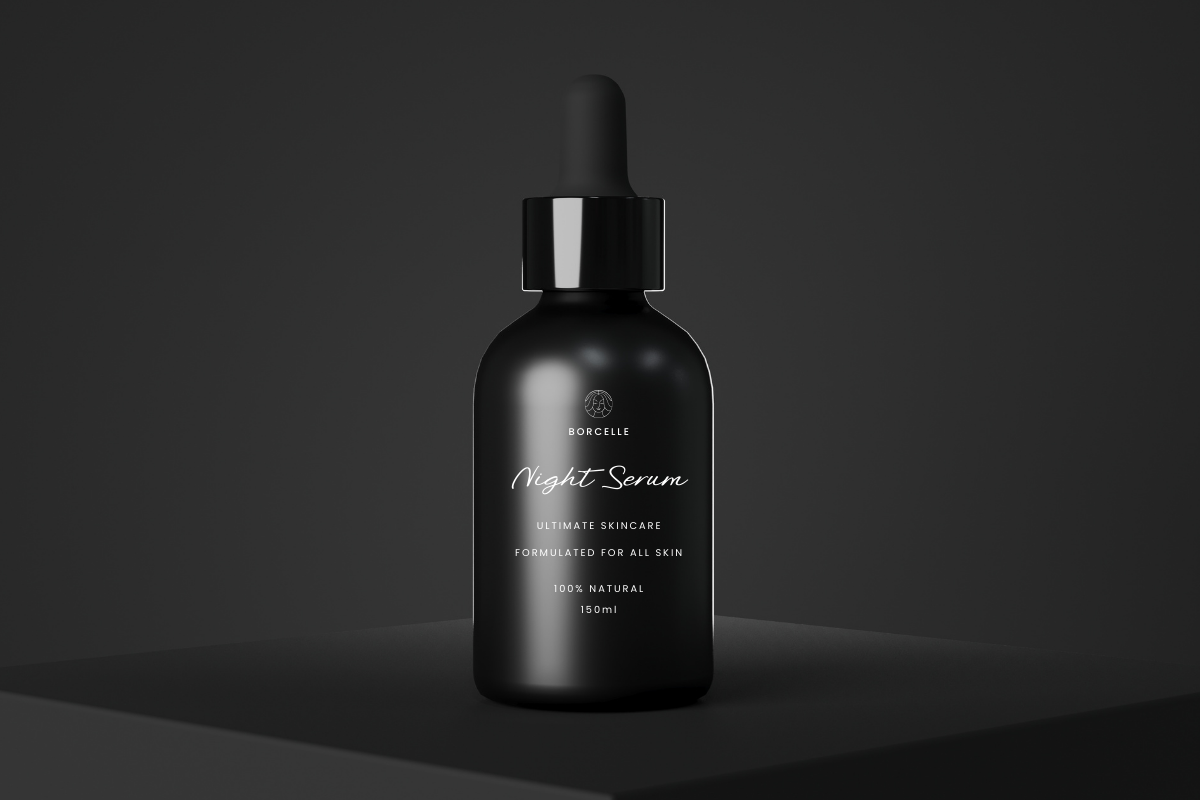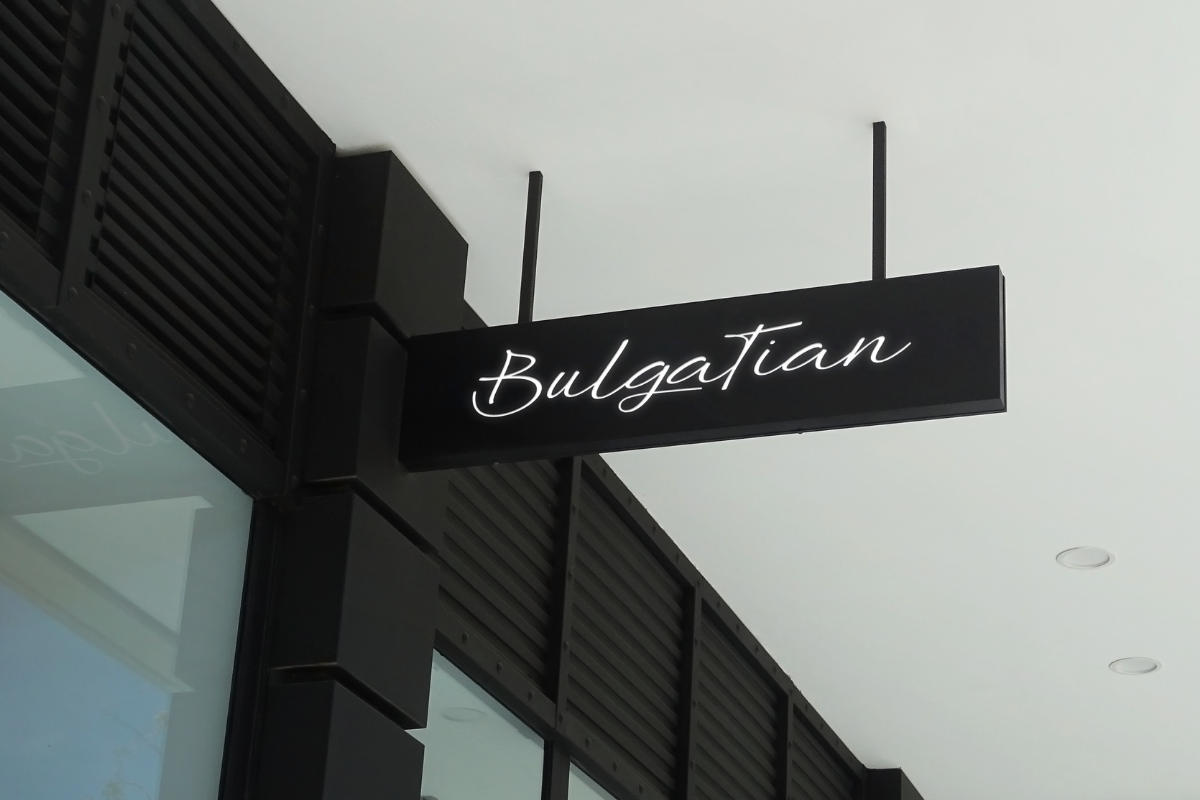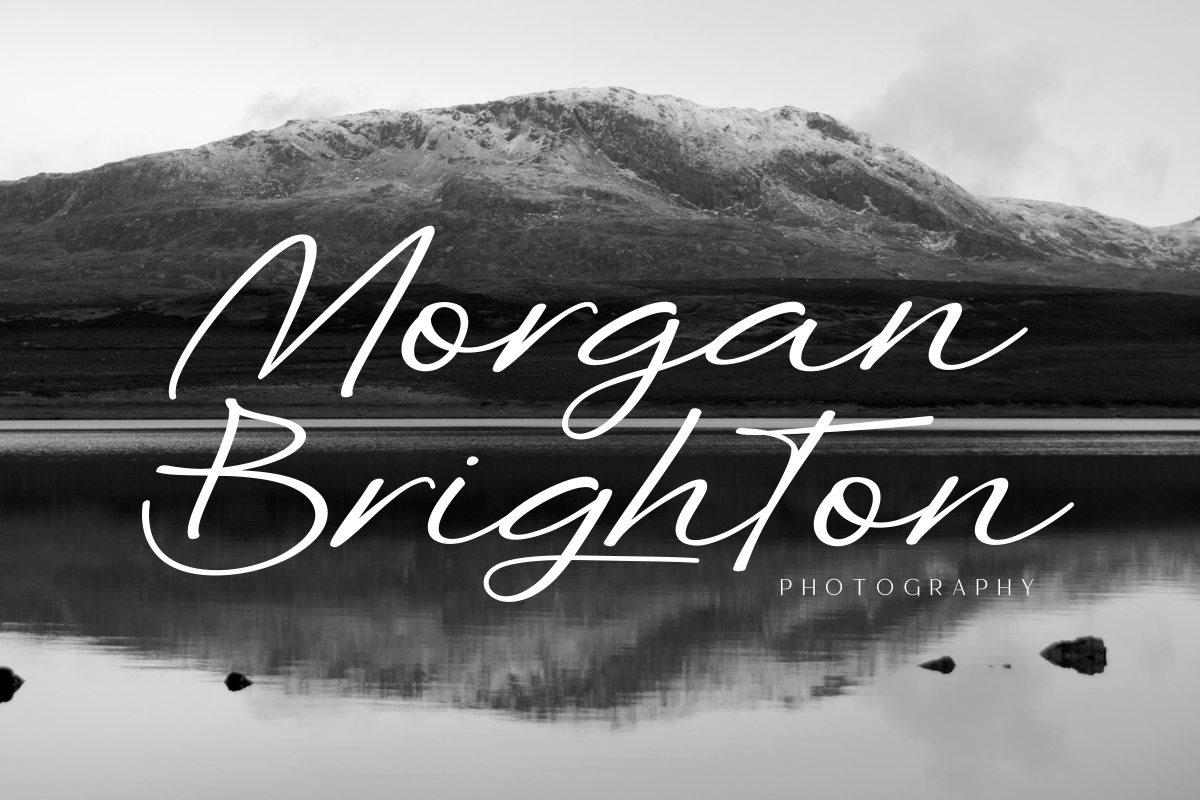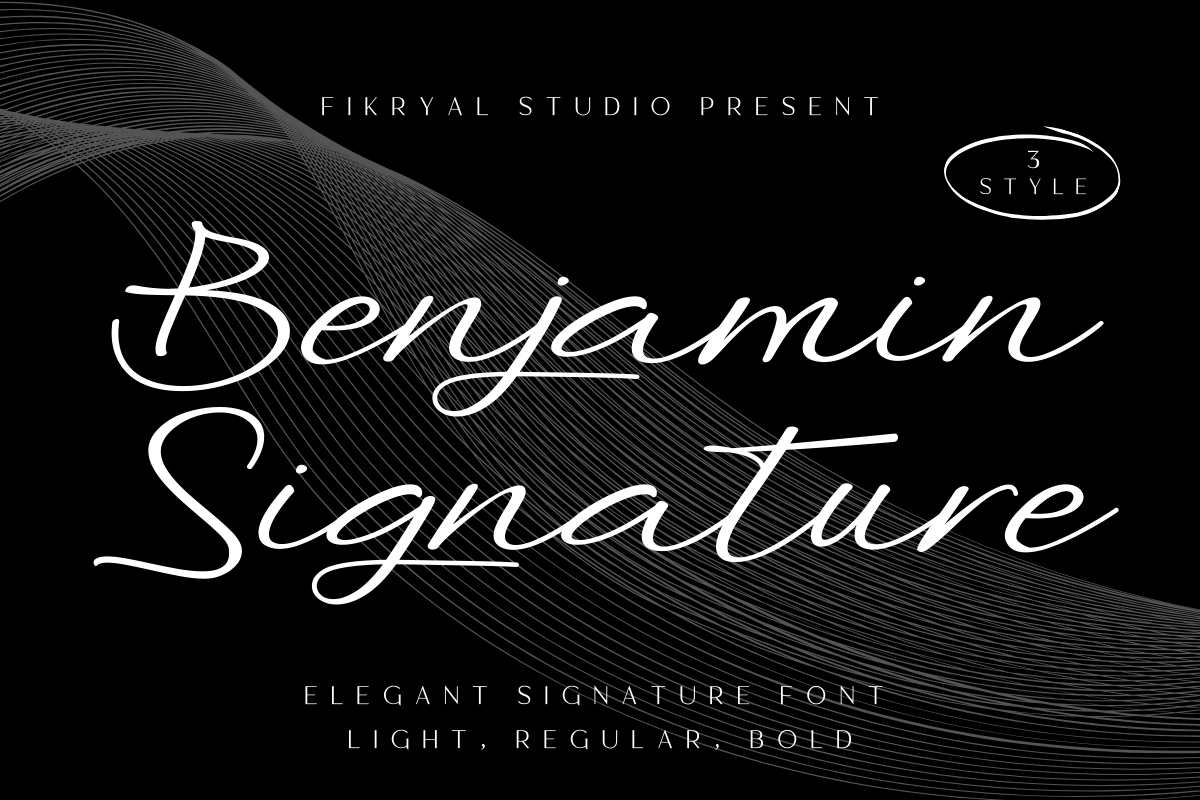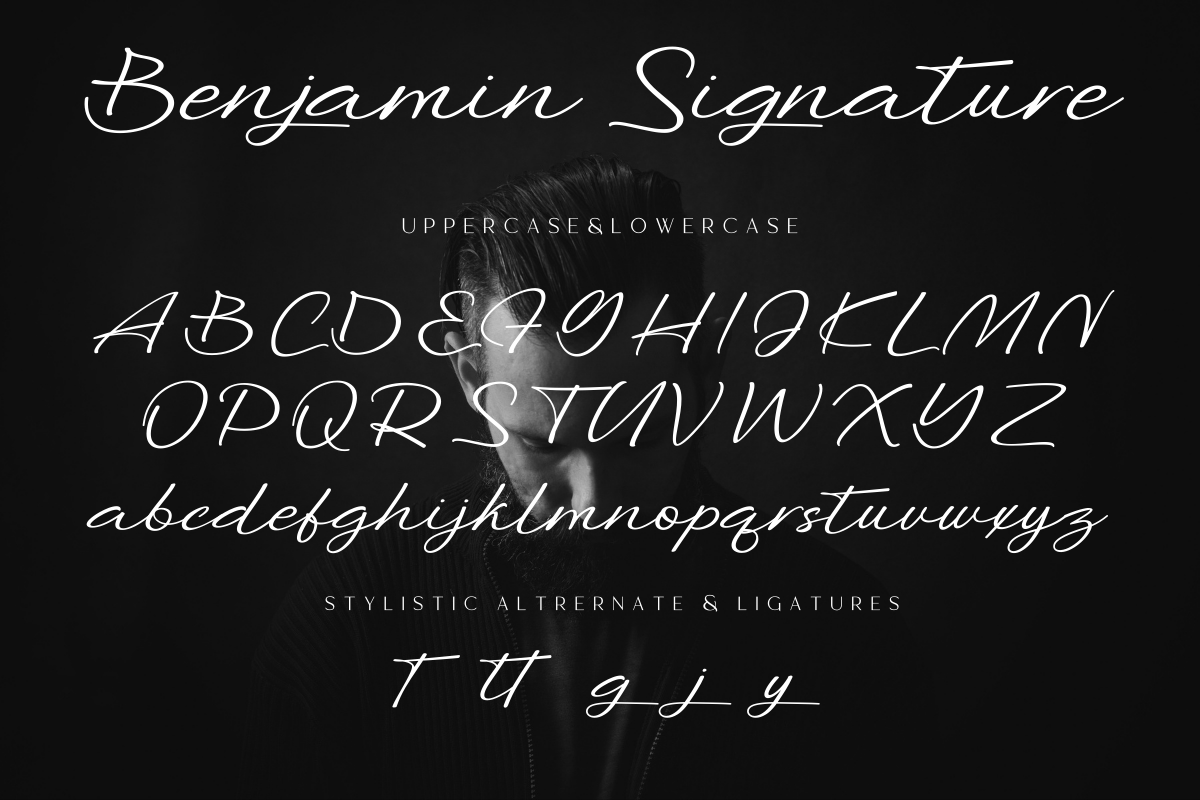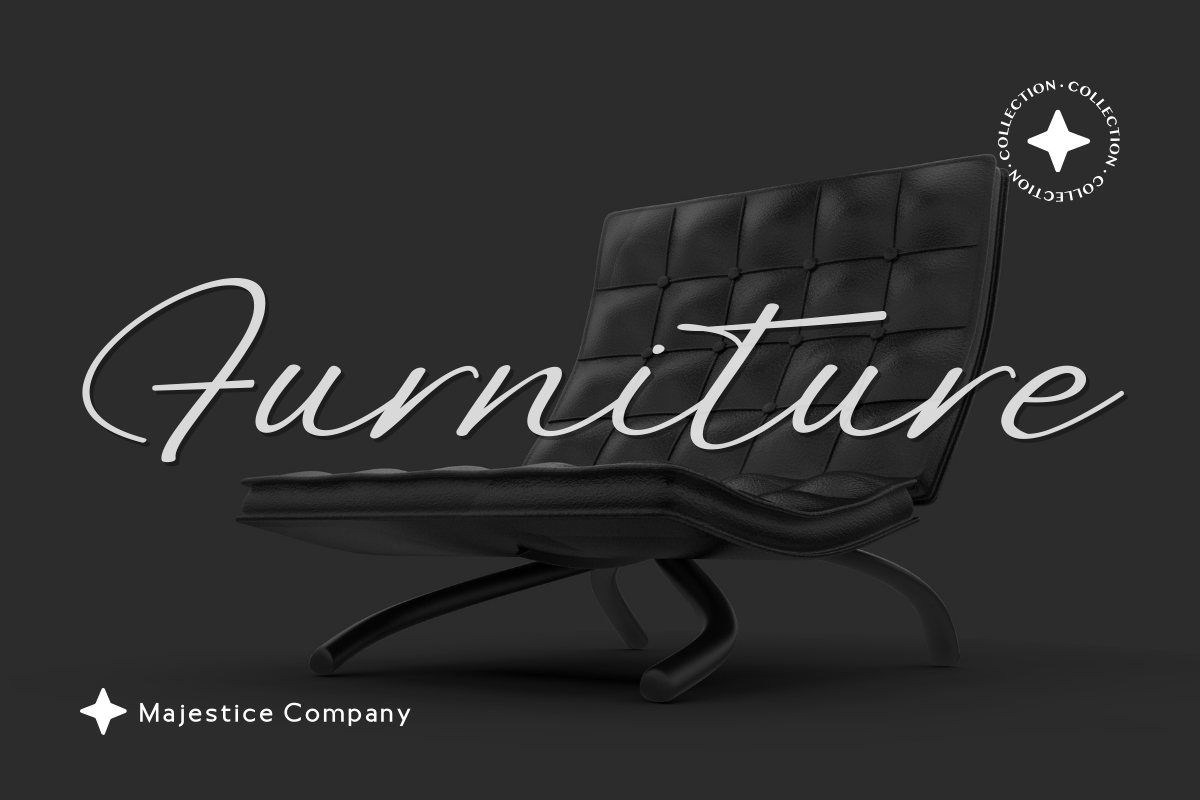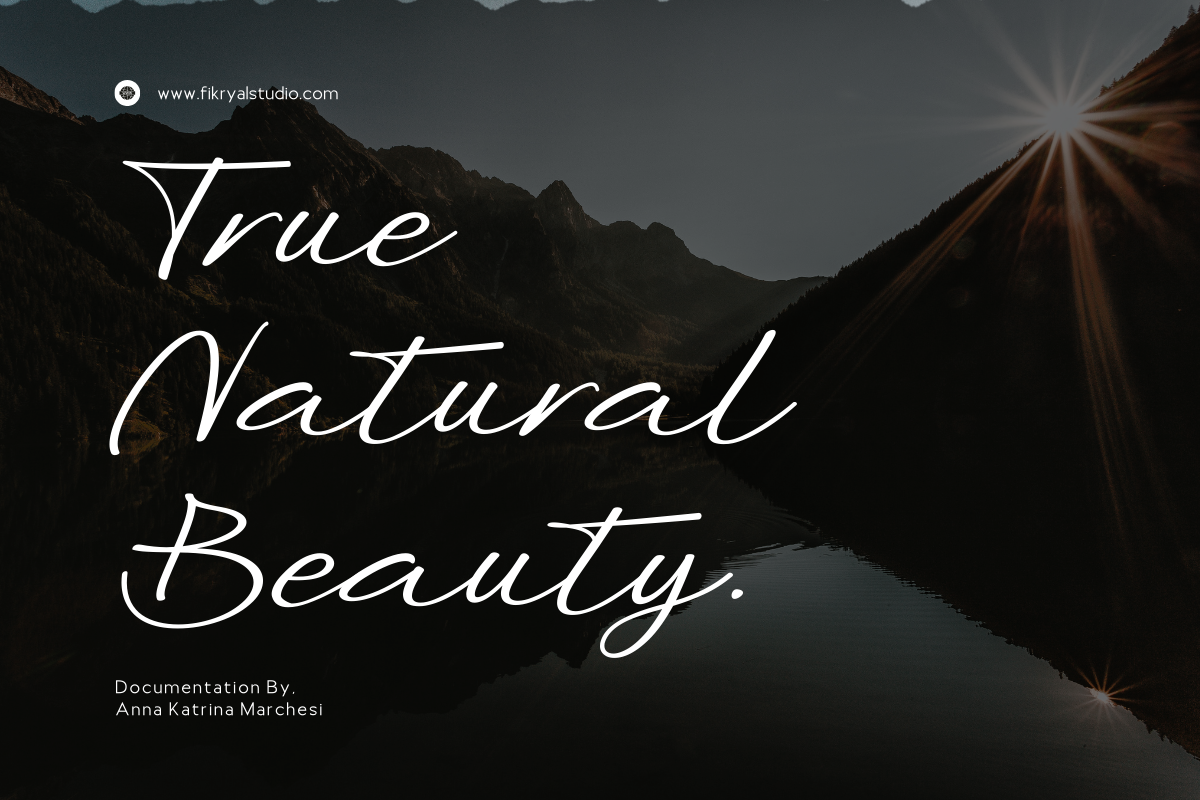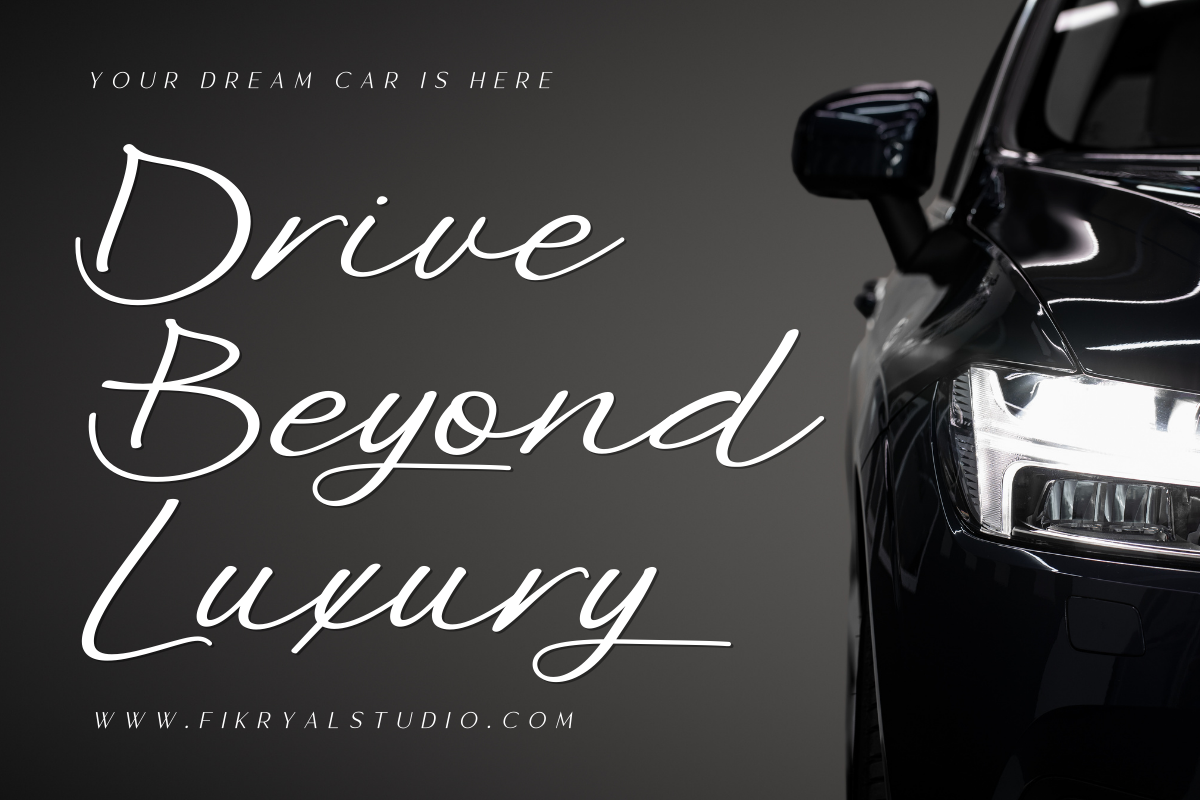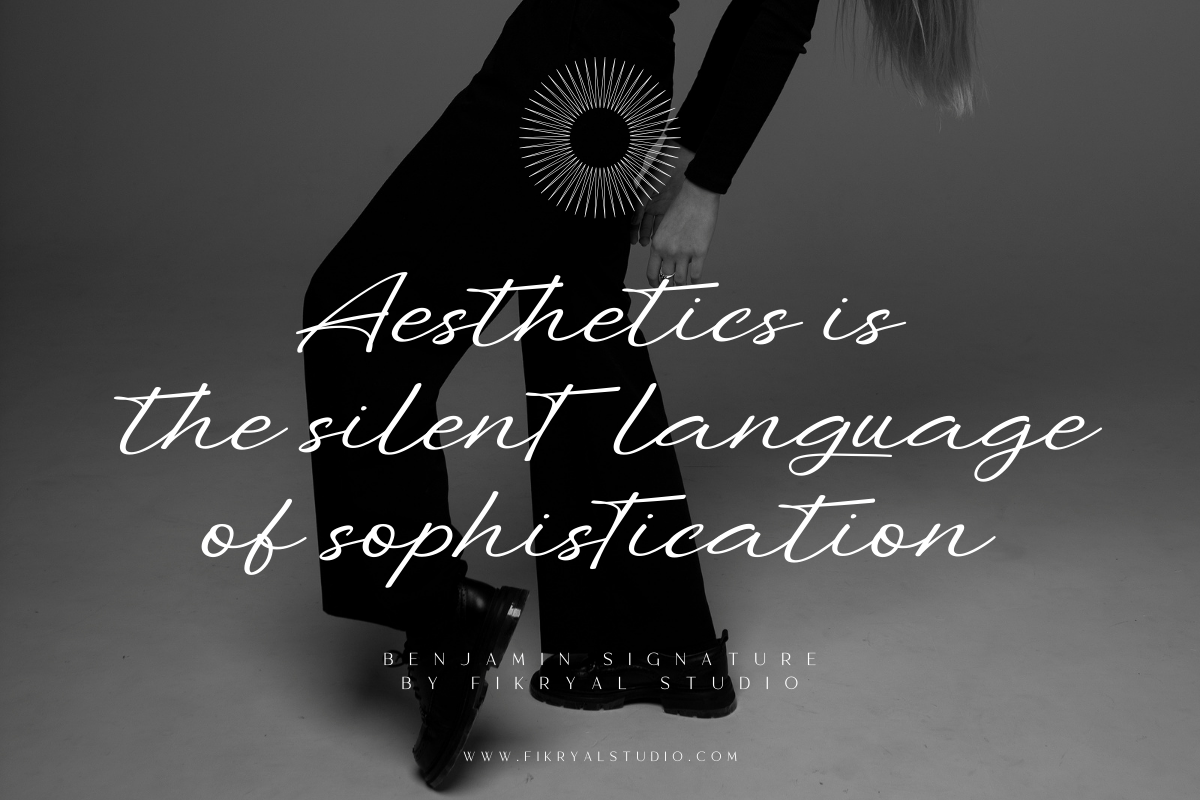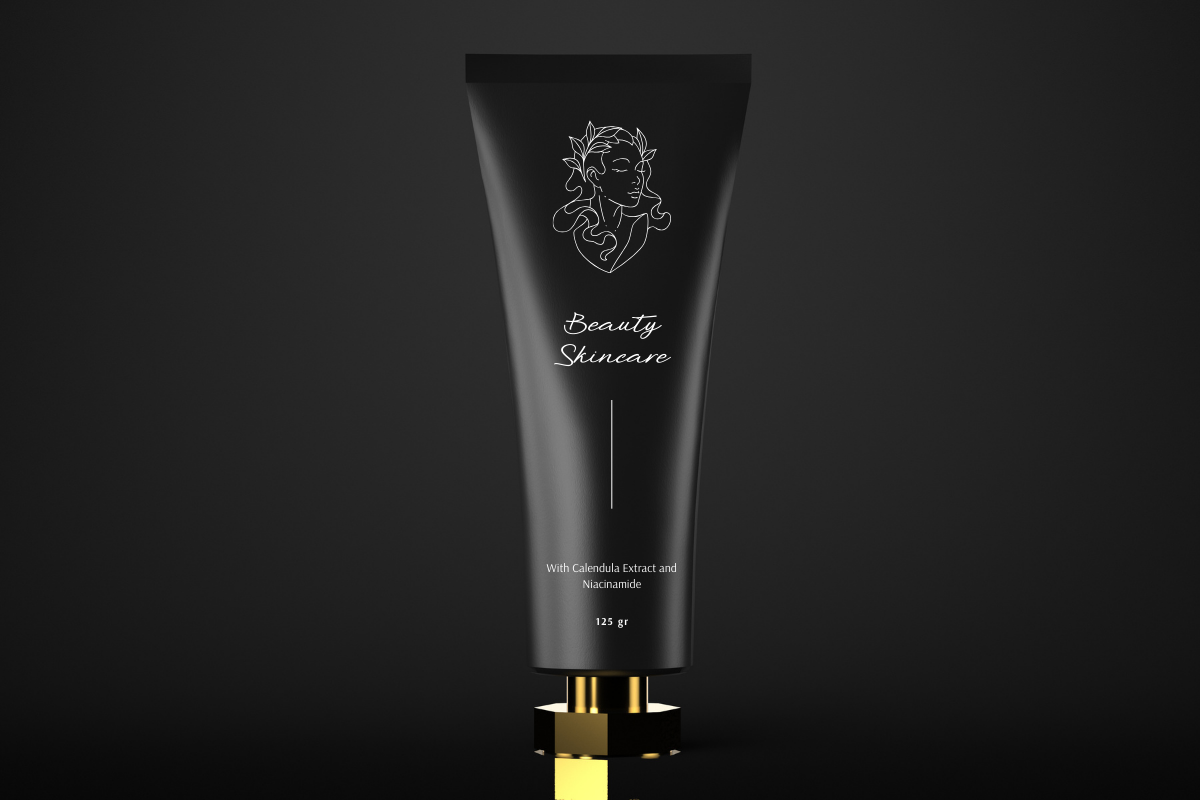
Benjamin Signature - Signature Font
Benjamin Signature is a refined and stylish typeface that captures the elegance of a handwritten signature, with three distinct styles Light, Regular, and Bold. This font offers versatility for a wide range of design projects.
Whether you’re crafting sophisticated branding, graceful wedding invitations, or upscale product packaging, Benjamin Signature adds a touch of personal charm and professionalism.
The Light style provides a delicate and airy feel, the Regular strikes a perfect balance for everyday use, and the Bold delivers a strong, impactful presence.
Choose Benjamin Signature to infuse your work with elegance and individuality.